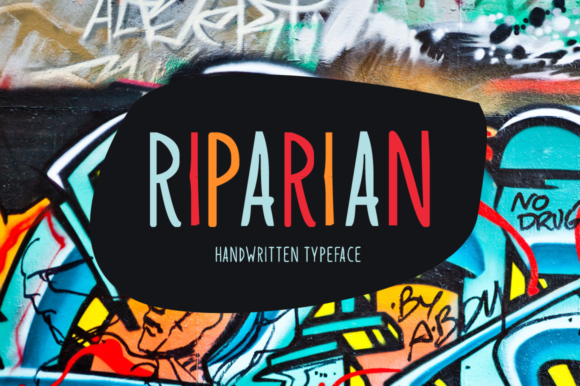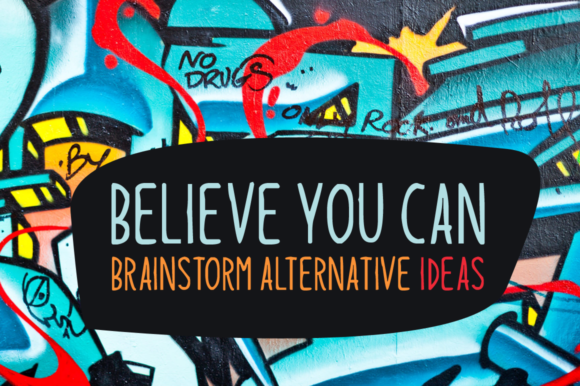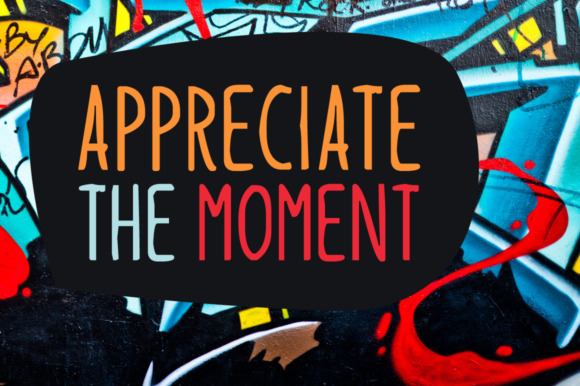
Riparian Font
About Riparian Font
Riparian is a stylish script font. Its casual charm makes it appear wonderfully down-to-earth, readable and, ultimately, incredibly versatile. This font will look outstanding in any context, whether it’s being used on busy backgrounds or as a standalone headline!